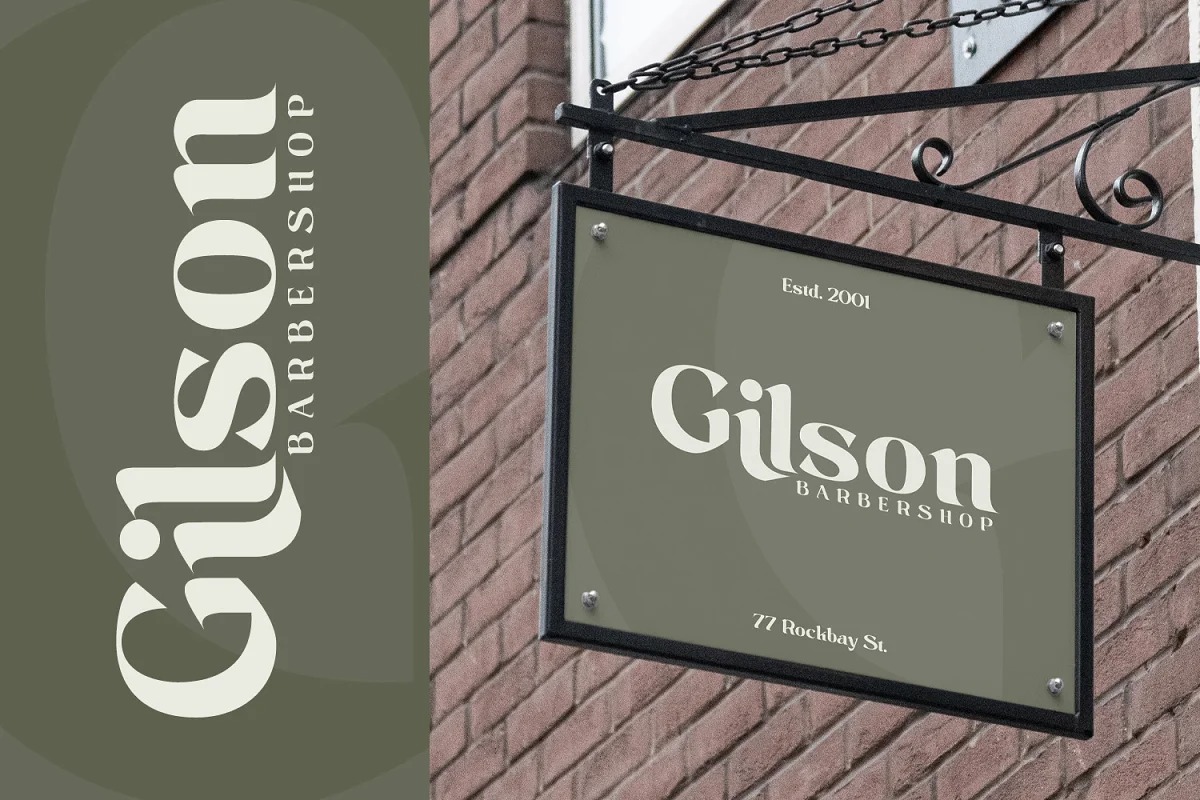
Railing Font
Railing Display Font
It’s a modern, trendy and assertive display Typeface crafted & designed by Din Studio. This font features thick and angular letters that easy on the eyes and nice to look while it’s also easy to read. Vintage Kingdom becomes more special with extruding version option. Perfect to create amazing headings, logos, menus, social media graphics, and many more.